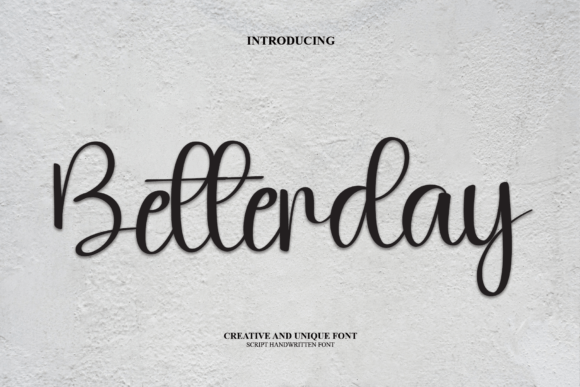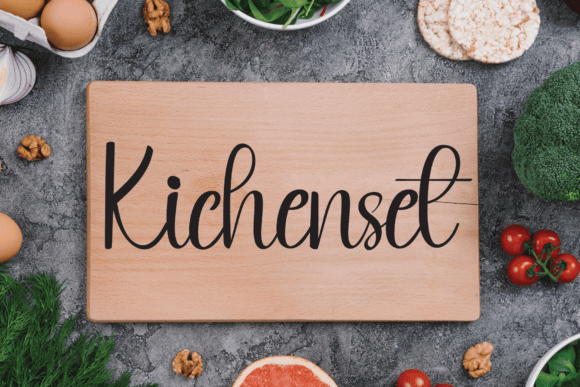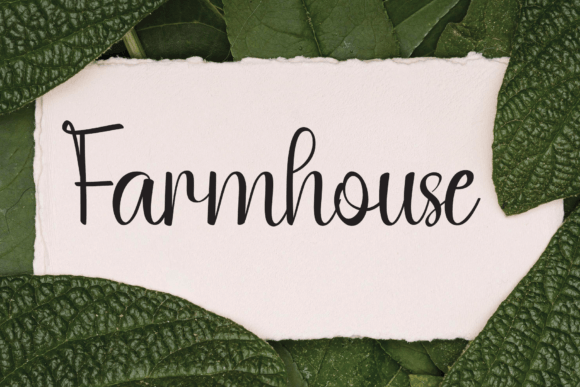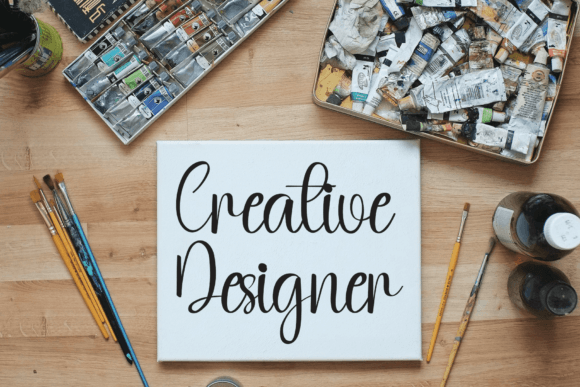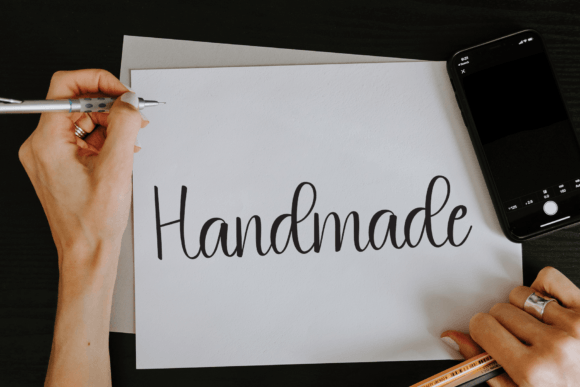
Betterday Font
About Betterday Font
“Betterday” is a captivating script font that combines modernity with a unique shape and a naturally flowing writing style. This font provides the perfect canvas for crafting beautiful typographic designs effortlessly, making it a versatile choice for branding, web design, editorial work, prints, crafts, and quotes.
The modern and distinctive shape of “Betterday” gives your designs a contemporary and eye-catching edge. The natural writing style adds an authentic touch, making this font well-suited for a variety of creative projects. Whether you’re working on logotypes, wedding invitations, romantic cards, labels, packaging, or personalizing names, “Betterday” infuses your designs with a touch of elegance.
The versatility of “Betterday” shines through in its ability to adapt to different design contexts. It is an excellent choice for creating memorable and expressive logotypes that leave a lasting impact. Additionally, its charm makes it an ideal candidate for designing wedding invitations, where a hint of sophistication and uniqueness is highly desirable.
“Betterday” effortlessly breathes life into your most creative ideas. From the realm of branding to the intricacies of crafting romantic cards, this font adds a special and refined touch to your projects. Witness how it transforms your designs, making them visually appealing and authentically expressive.
Embrace the versatility and beauty of “Betterday” as you embark on your creative journey. Whether you’re designing for digital platforms or crafting tangible items, this font is your reliable ally, ready to elevate your typographic designs to new heights.